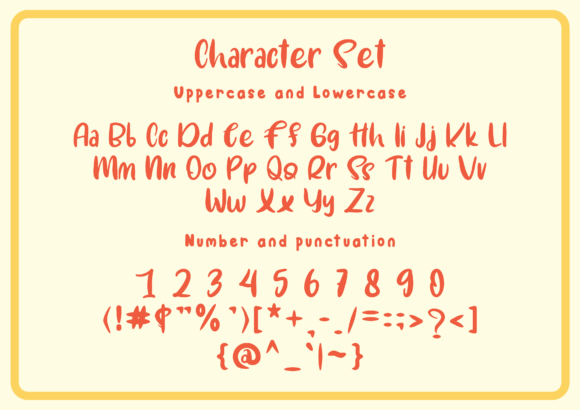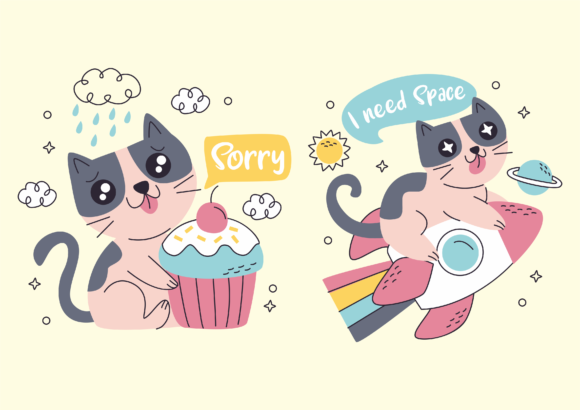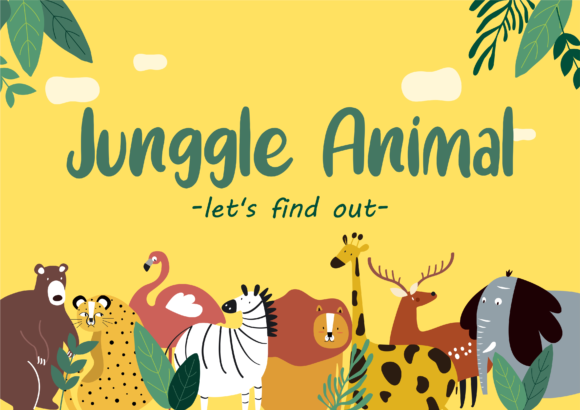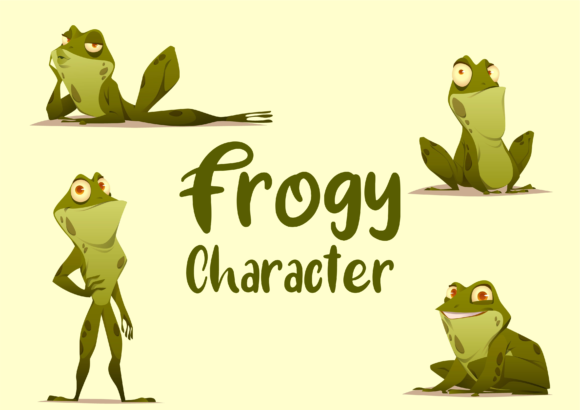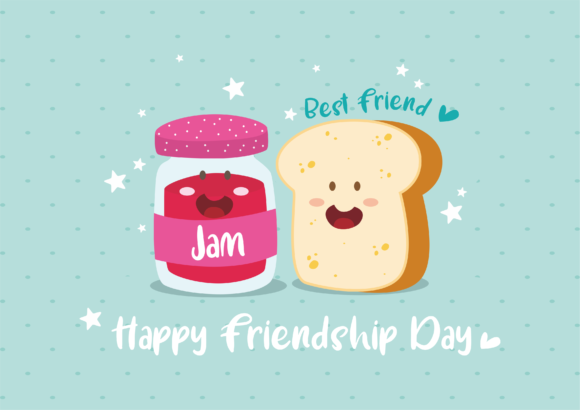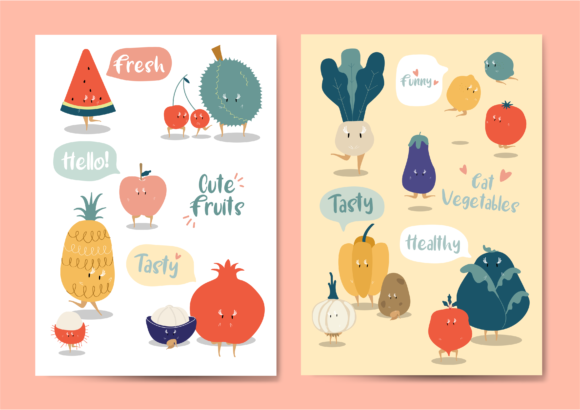
Introduction to Mystikal Font
Mystikal is a cool, playful and fun display font.
This original look will appeal to a wide range of crafty ideas, from letterheads and titles, to stationery .
Key Features of Mystikal Font
Why Choose Mystikal Font?